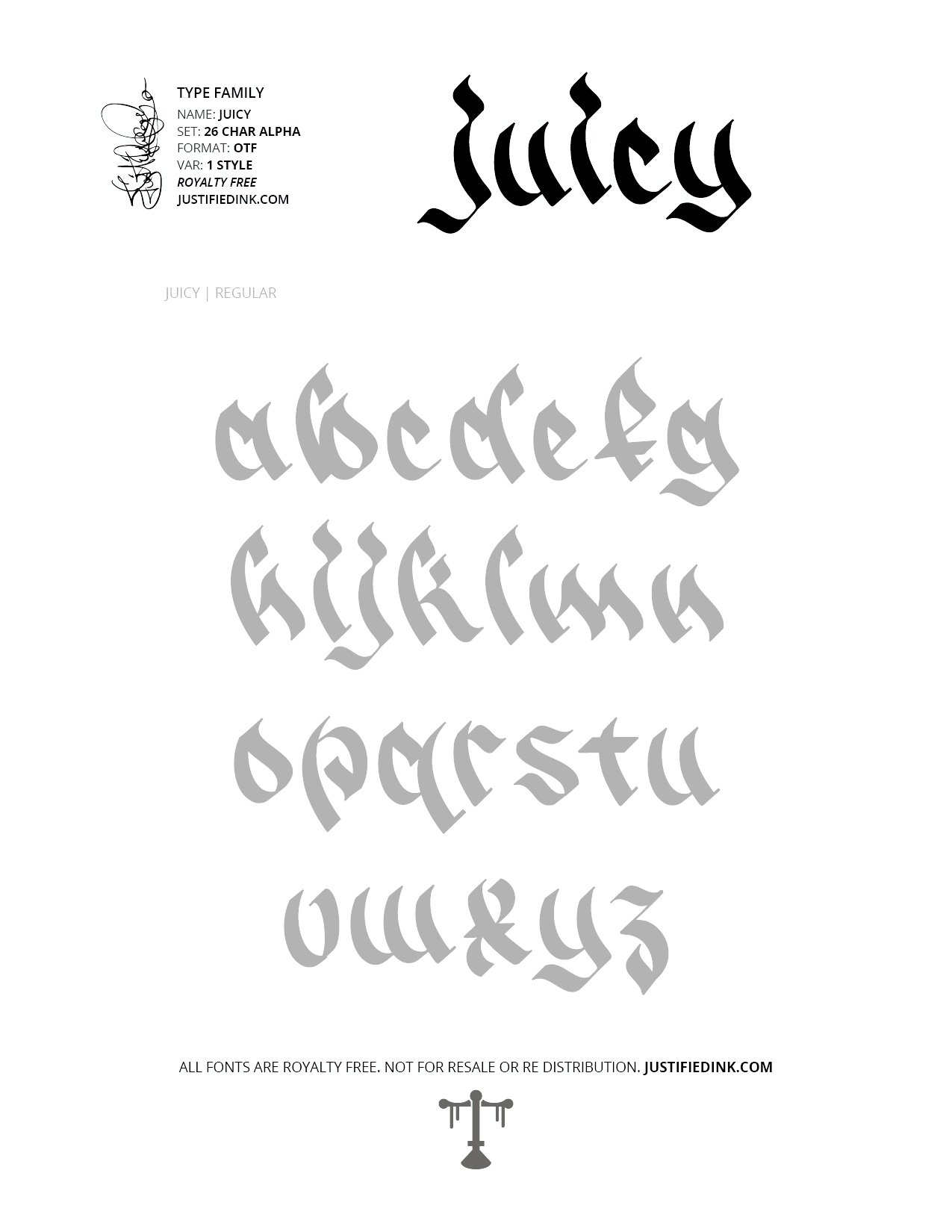
Juicy (1 style) - Custom Font by Justified Ink
NAME: Juicy
Juicy is a silky smooth brush script - dressed fresh, and ready to impress.
This font is part of the collection by Justified Ink, called Blackletter III. After 15+ years creating, I began to focus on building personal libraries of my work. Blackletter III is yet another amazing collection of 30 handmade fonts. Building off of the work done to create Blackletter II, this collection is specialized where it was created digitally. This features many classic styles such as gothic, fraktur, beneventan, and uncial. Additionally, this collection contains several other styles drawn from graffiti, hiphop, and indie type styles. It comes in a full set of 26 char alpha. Each font family has variations in styles and/or non-alpha chars.